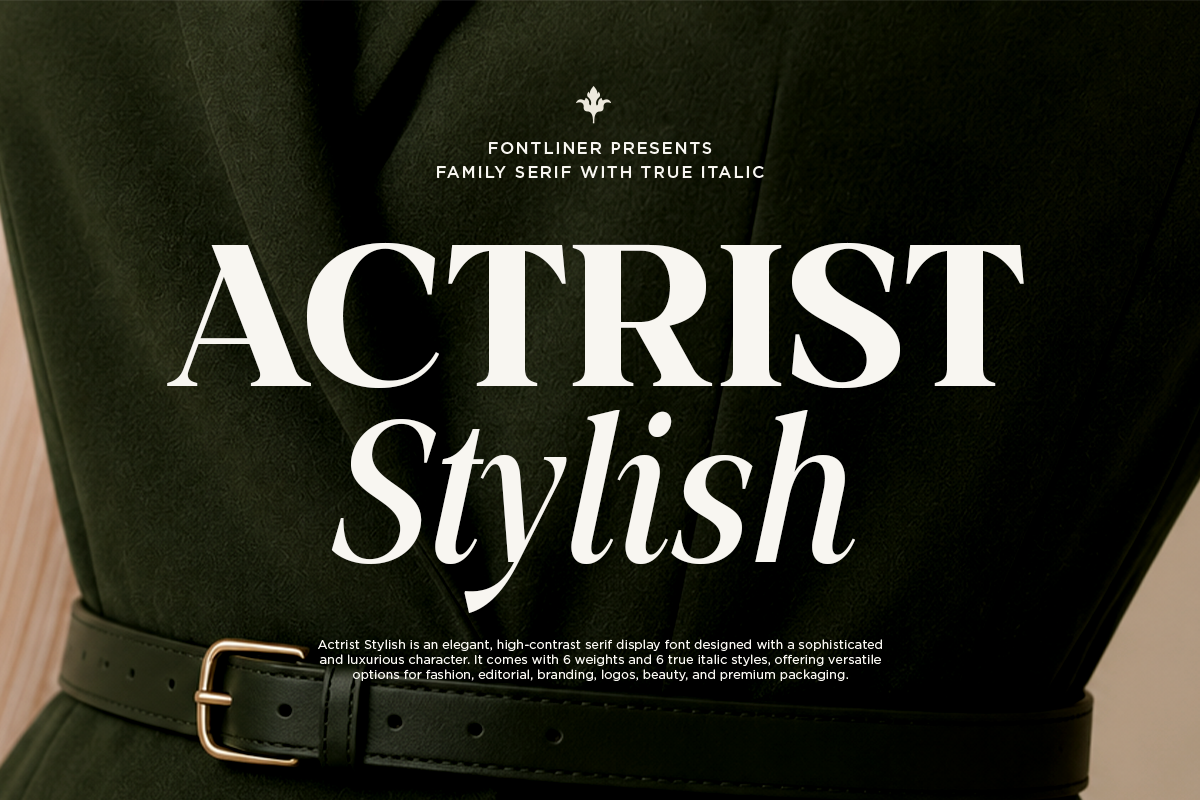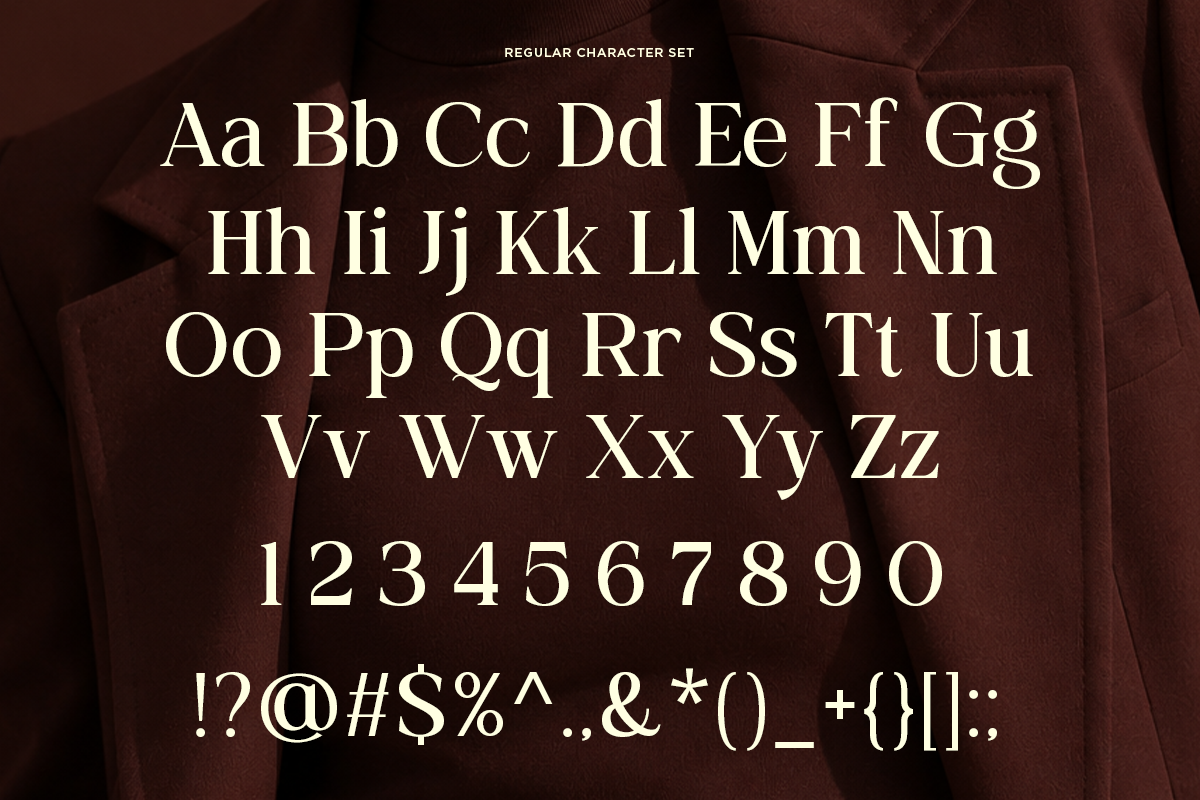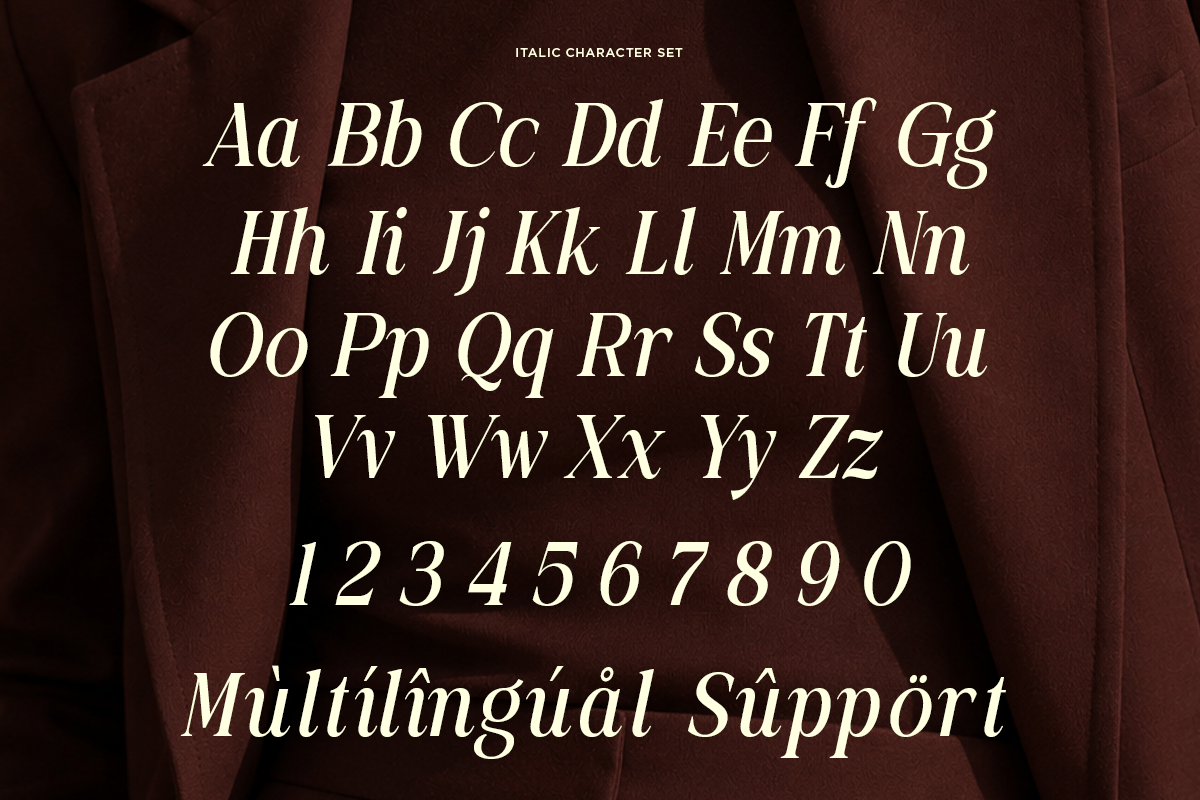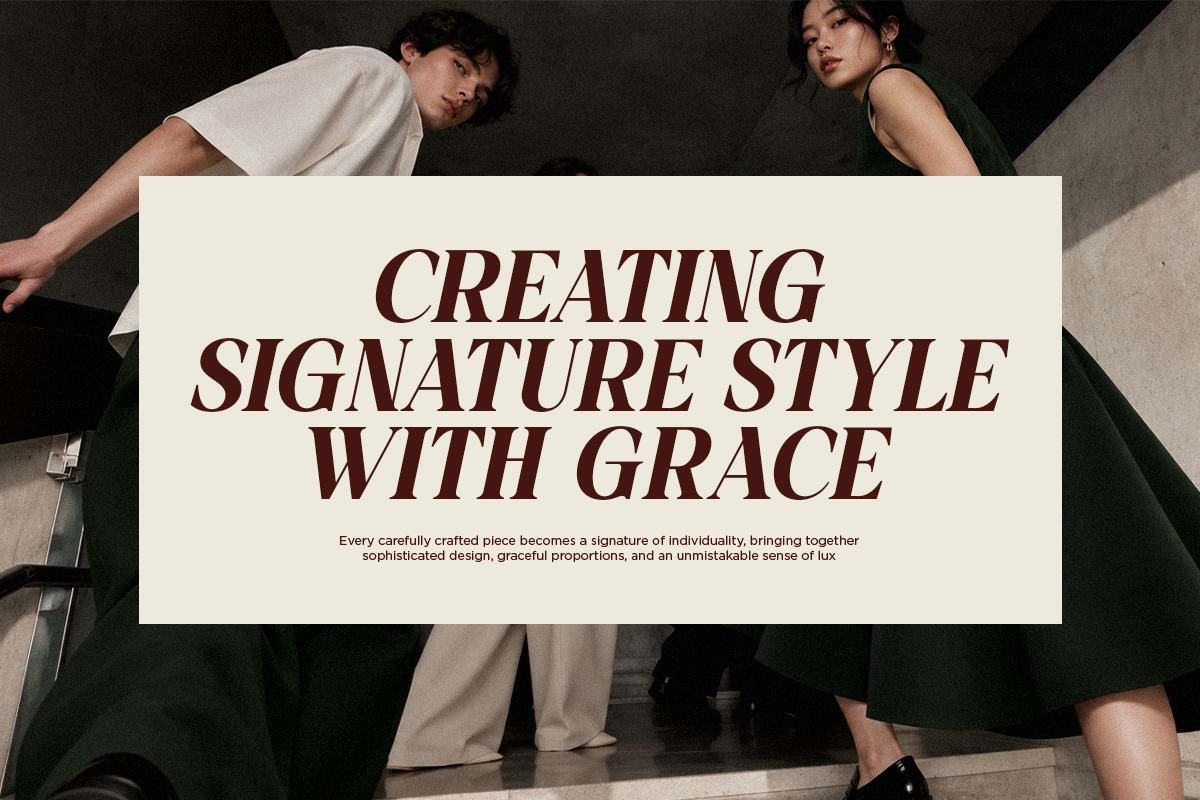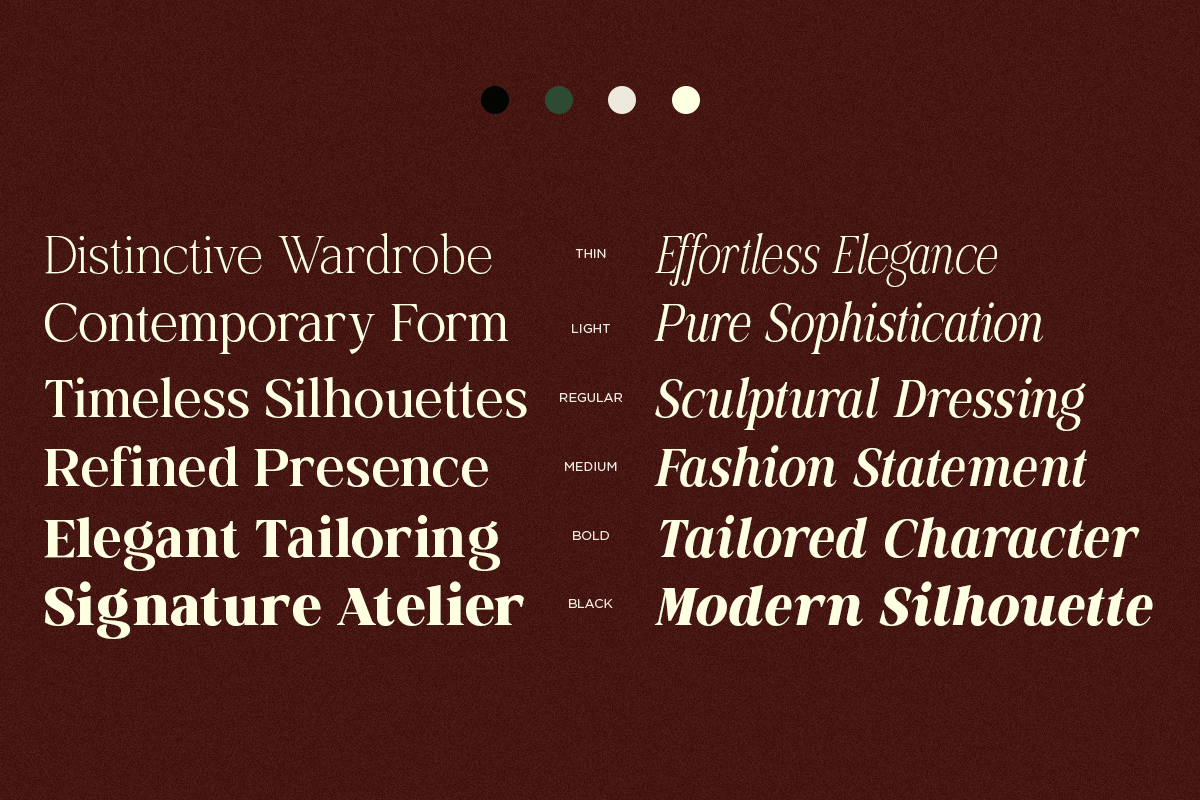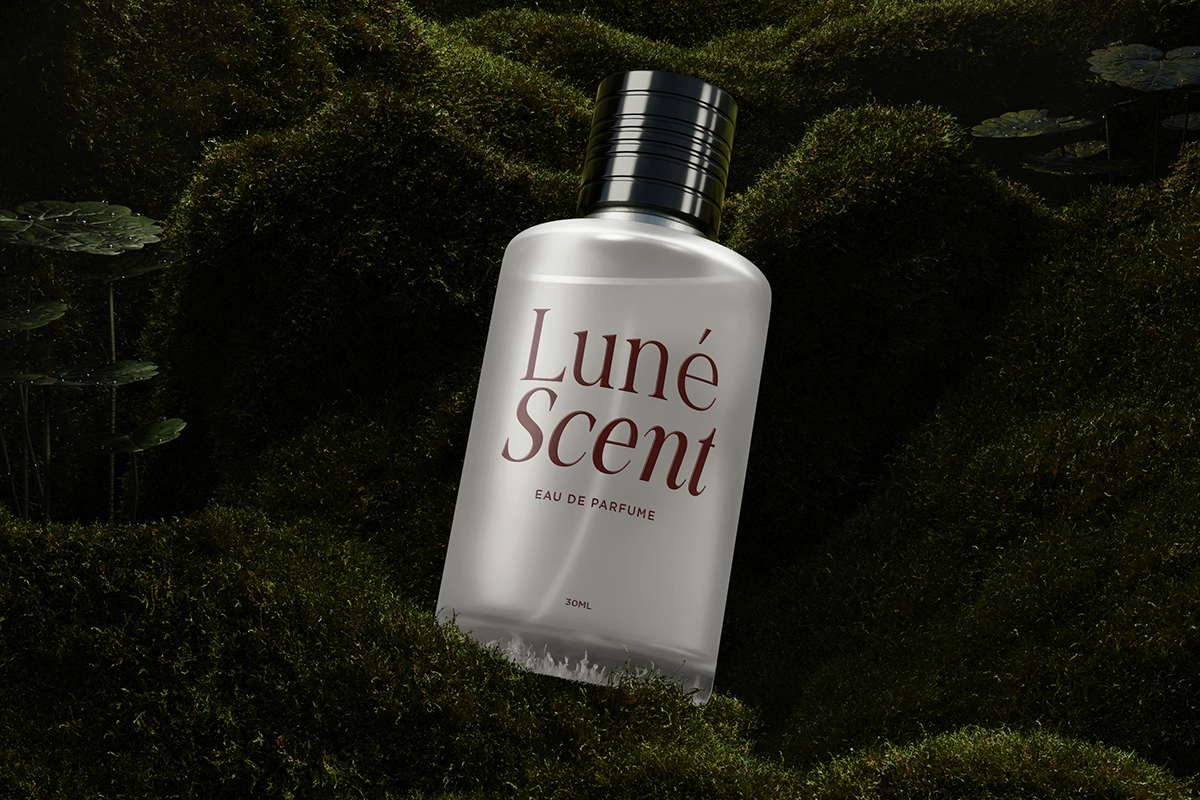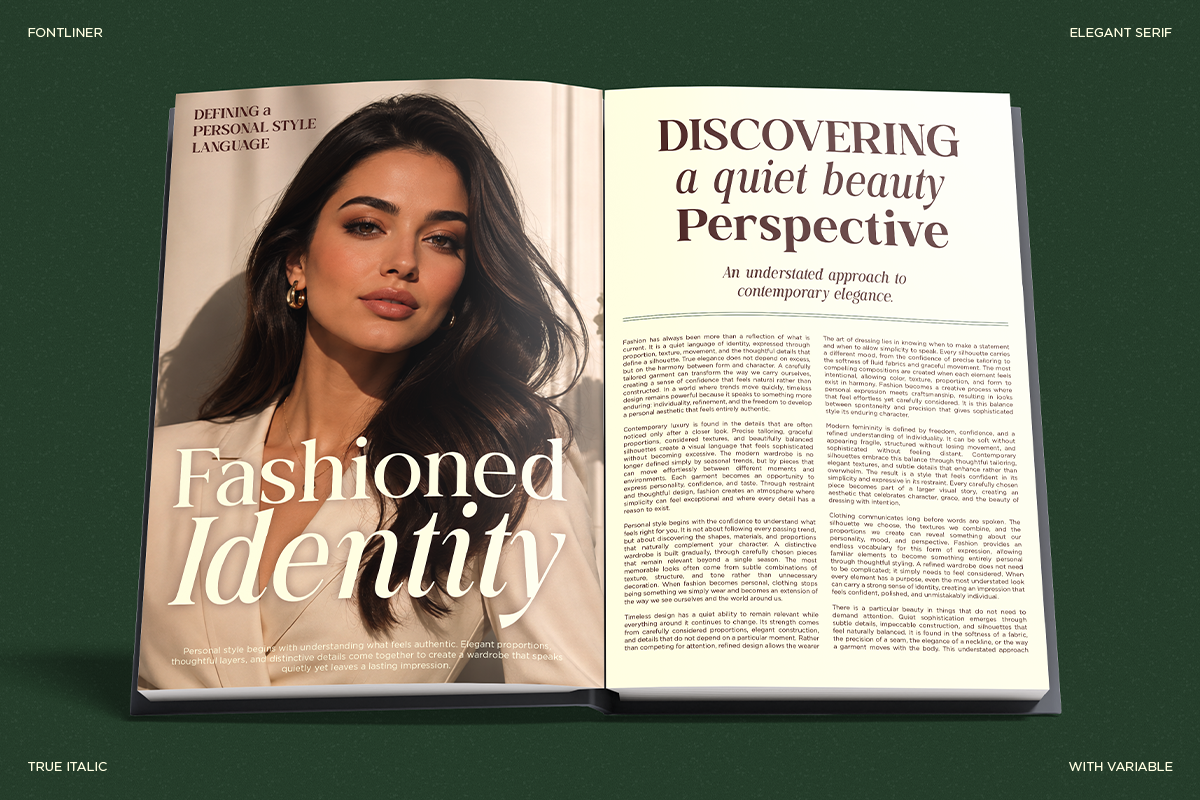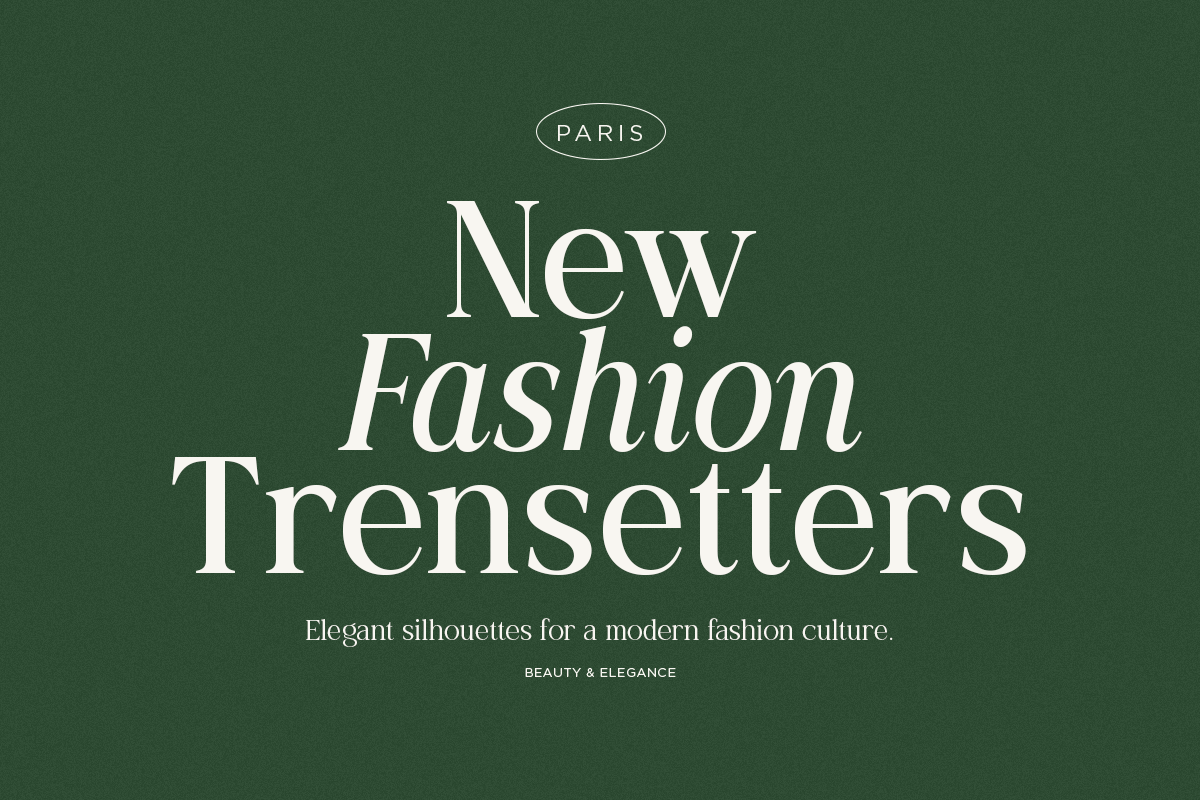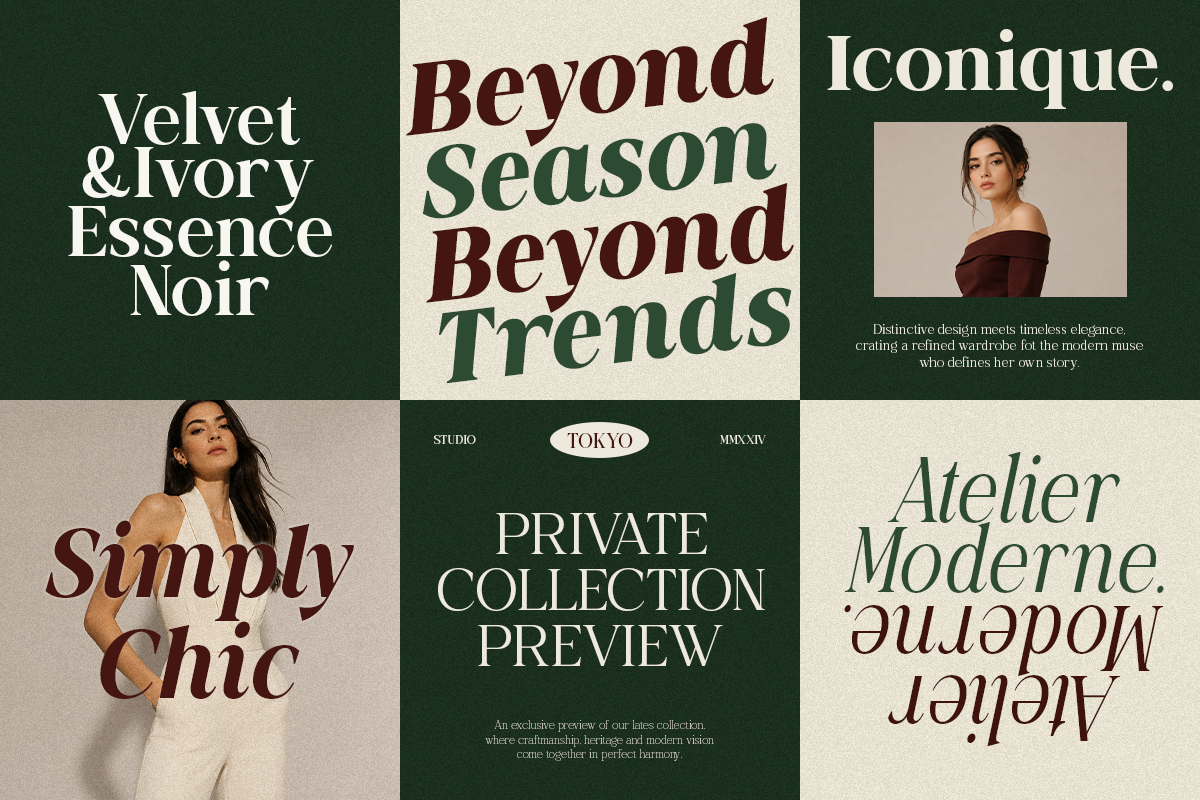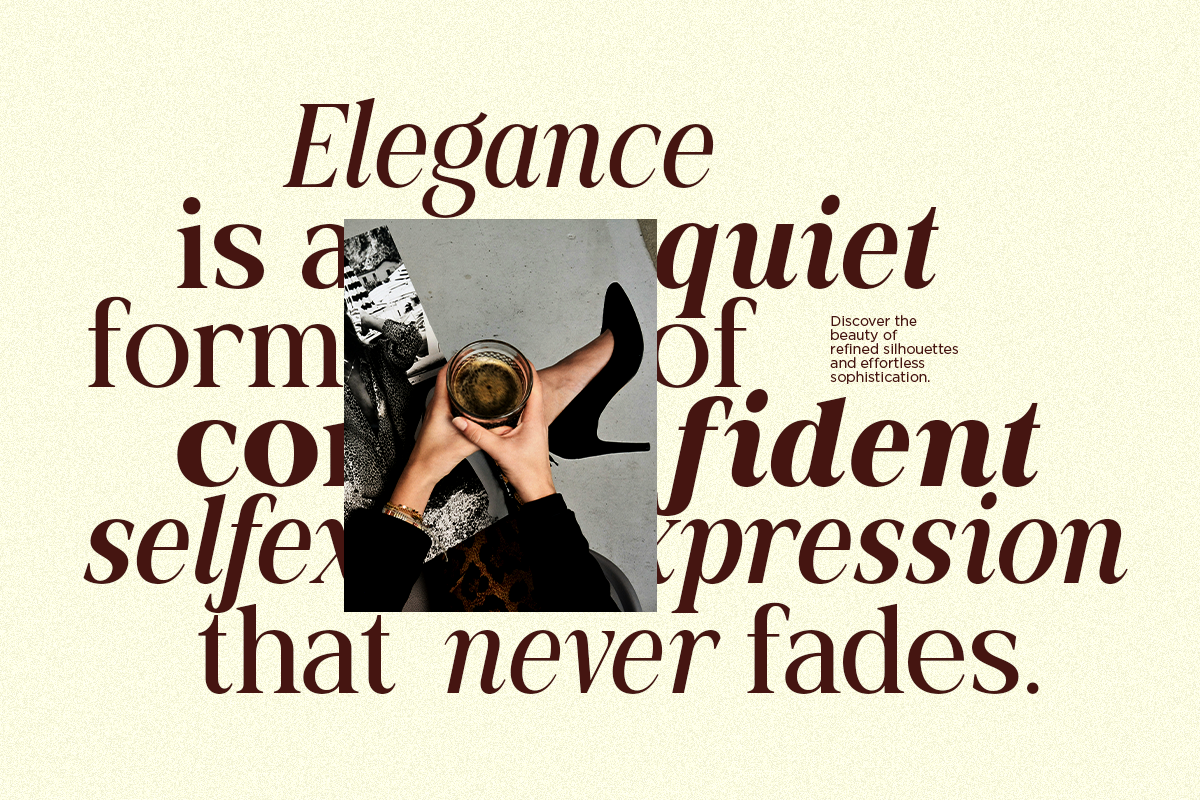
Family Luxury Font - Actrist Stylish
**Actrist Stylish **is an elegant and sophisticated serif font family designed for fashion, editorial, luxury branding, and contemporary visual identities. With its refined proportions, graceful curves, and stylish contrast, Actrist Stylish brings a premium and expressive character to headlines, logos, magazines, campaigns, and high-end brand communication.
This font family features 6 variable weights, giving you flexible control over typography from delicate and refined to bold and impactful. Actrist Stylish is available in both Regular and True Italic styles, with the true italic version offering an authentic slanted letterform design for a more elegant and dynamic typographic expression.
Perfect for fashion magazines, luxury branding, editorial layouts, beauty campaigns, perfume packaging, wedding stationery, logos, posters, advertising, social media graphics, and premium product packaging. Actrist Stylish is built to create sophisticated typography that feels timeless, fashionable, and effortlessly stylish.
6 Variable Weights
Regular and True Italic Serif
Number, Symbol, and Punctuation